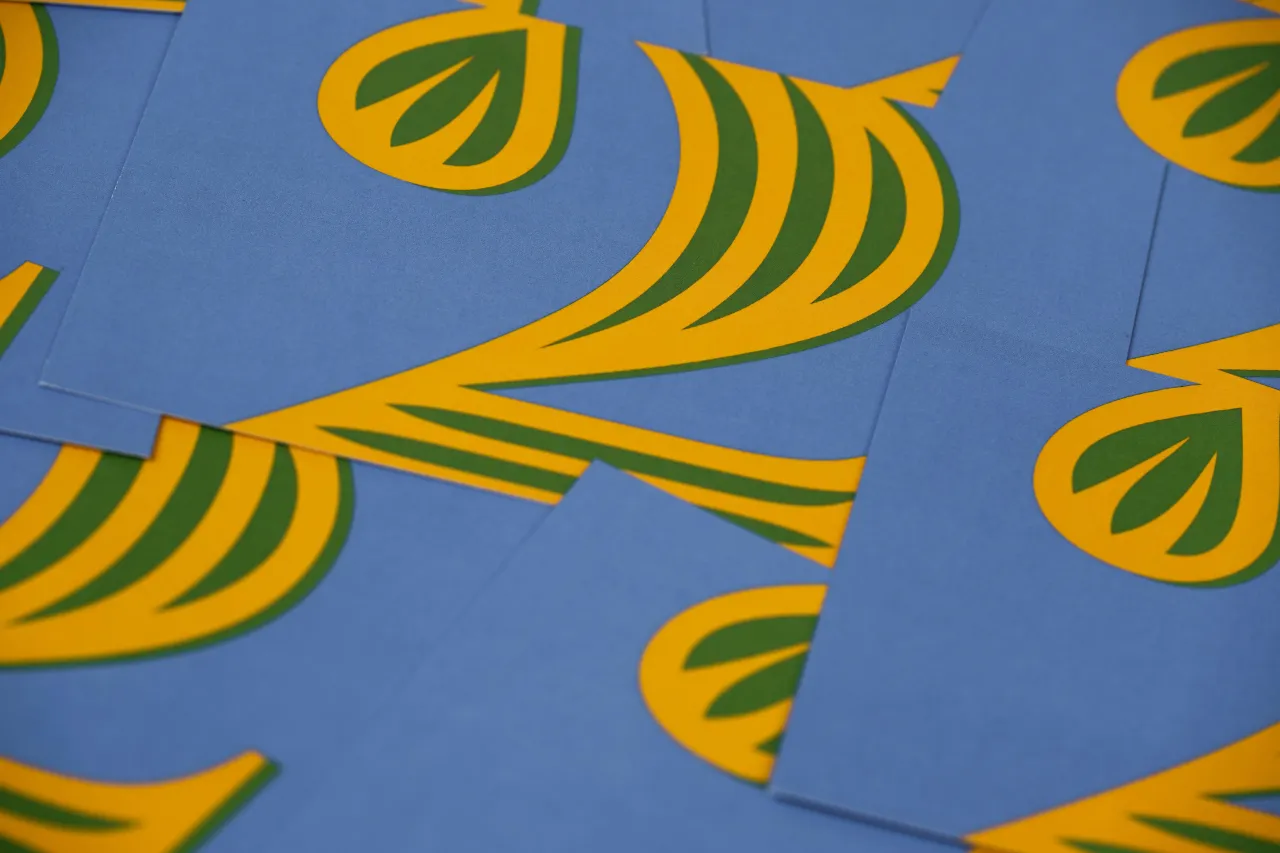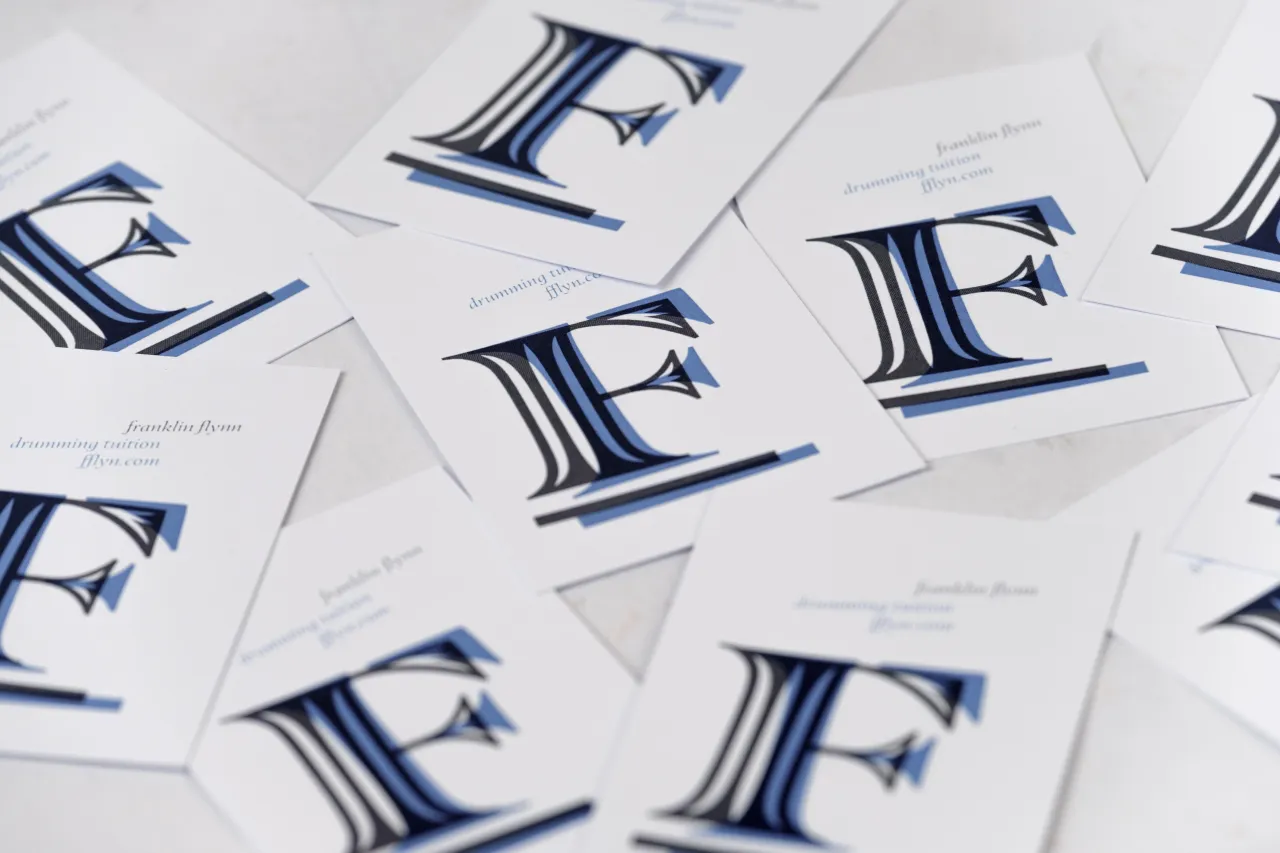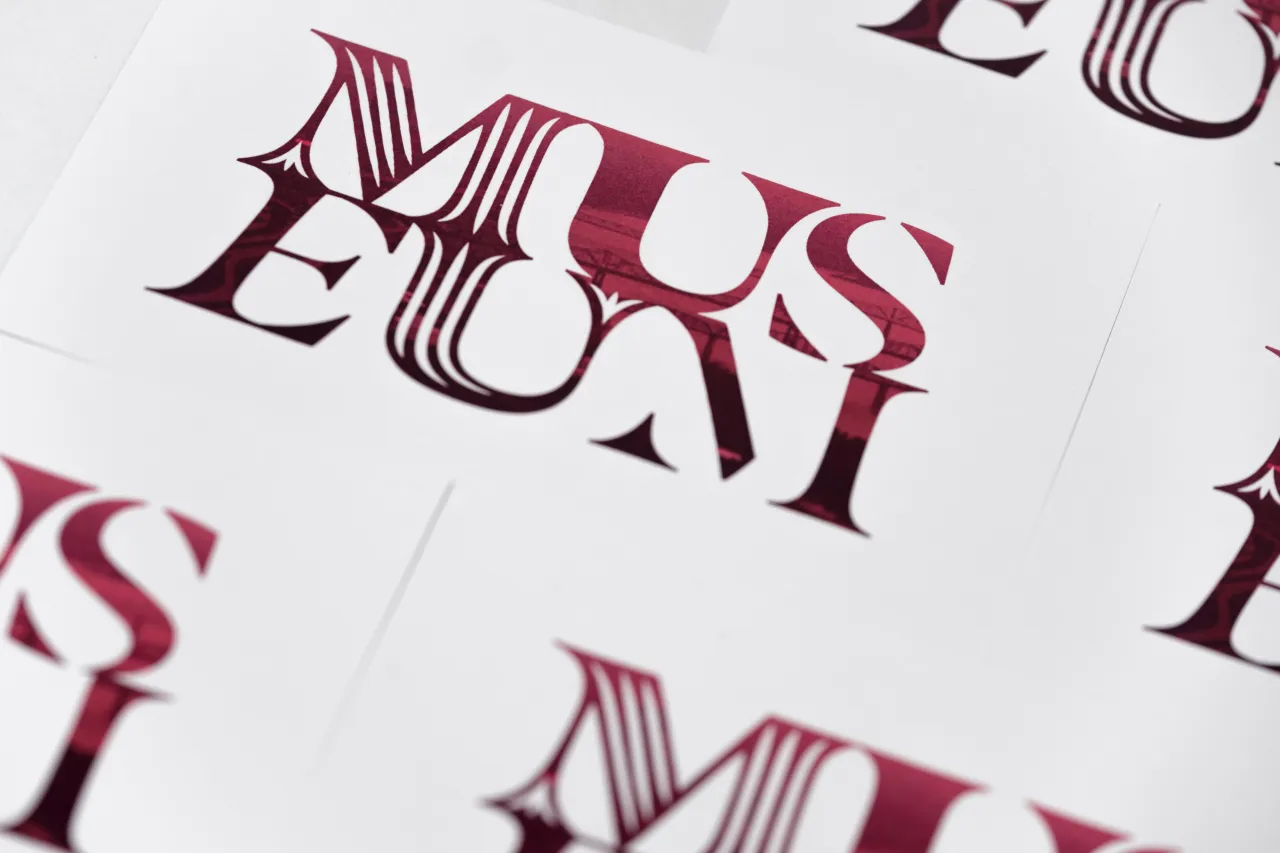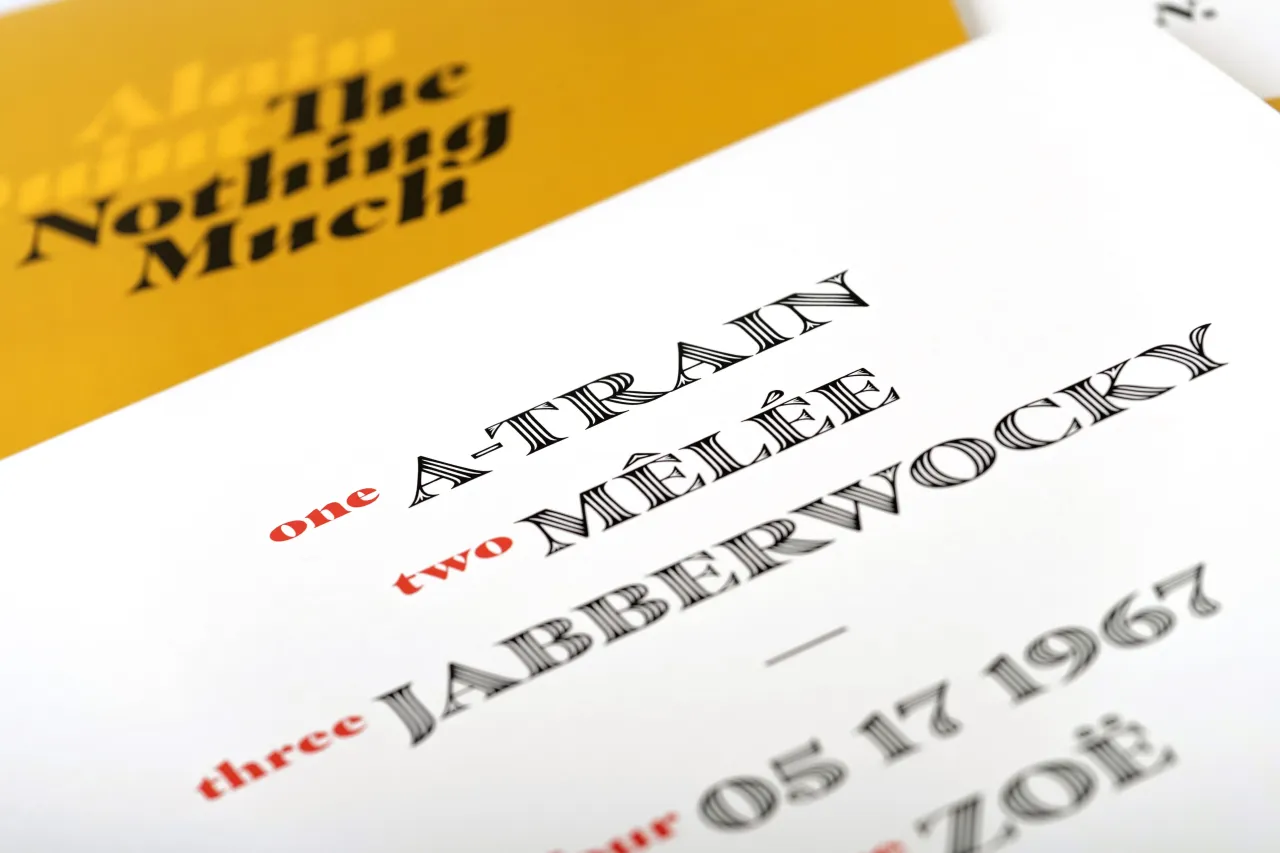
A typeface made from music: Monotype launches Masqualero
Today, the lovely people at Monotype unveil what may be the first typeface directly inspired by a jazz record. Of course, people respond to music in a multitude of different ways, but there can’t be many who channel their appreciation for classic 20th-century jazz into font design.
Nevertheless, Jim Ford of Monotype Studio has done precisely that, taking his admiration for Miles Davis’ seminal 1967 album Sorcerer – and the track ‘Masqualero’ in particular – and transforming its contrasts, contradictions and complexities into the bold but ambiguous letterforms of the Masqualero typeface.
"I like the name because it rolls off the tongue and it doesn’t mean anything," Ford explains. "It’s an abstract word that Wayne Shorter came up with when he was in the band, so it’s always been about that word and that song."
"There’s also a lot of details in the typeface that talk about Miles Davis’s career and his personality," he adds. "He was sharp-tongued and very opinionated, and I think he intimidated a lot of people."
At the same time classical and innovative, warm and friendly or icily elegant, it’s a dual-natured typeface that can create entirely different effects by applying different weights. This makes it extremely versatile, as suited to luxury product packaging as body copy in a corporate report – anywhere that might benefit from a touch of timeless sophistication, undercut by a note of wildly inventive creativity.
"It has a lot of extra points that you wouldn’t see or think are there," elaborates the designer, who credits Matthew Carter’s work as a reference. "But that’s what really gives it clarity and that sparkle. It’s all sculpted, and each letter is unique from the others."
What about suggested typeface pairings? The versatility of the Masqualero typeface and its wide range of weights means that it pairs well with typefaces of various styles and designs, including the Quire Sans™, Kabel®, Antique Olive™, Charter® and Trade Gothic® typefaces.